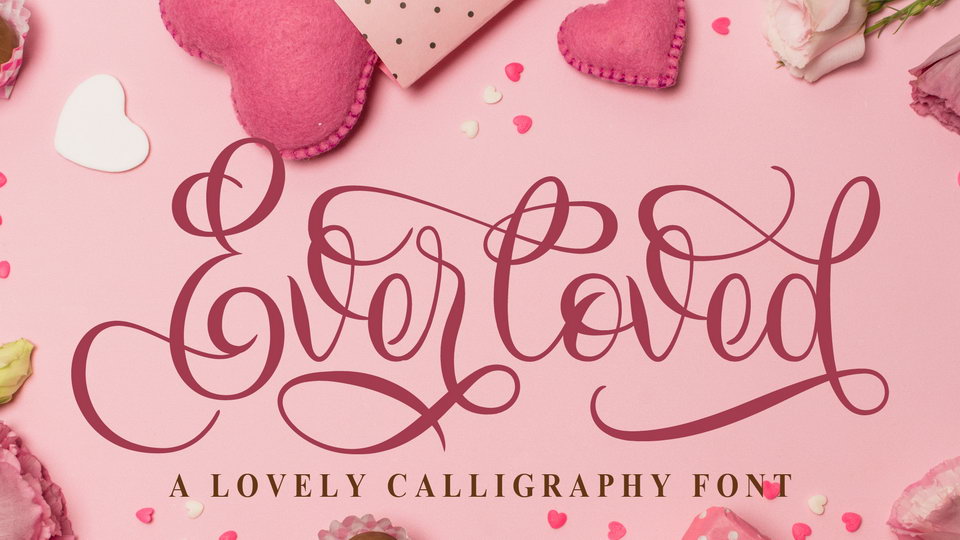
Download Everloved font, a lovely modern calligraphy script with fancy swashes. Everloved is decorative font created with a love for calligraphy art.
Designer: Mas Fik